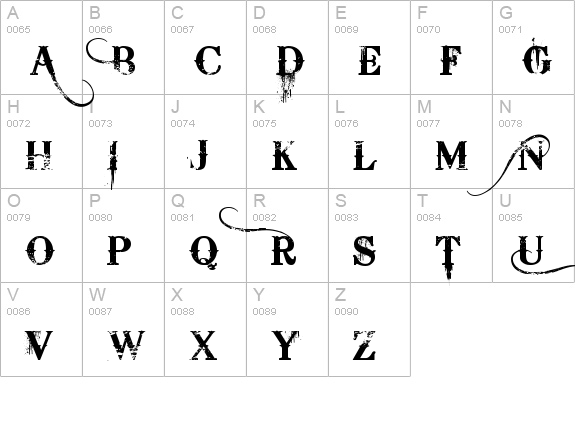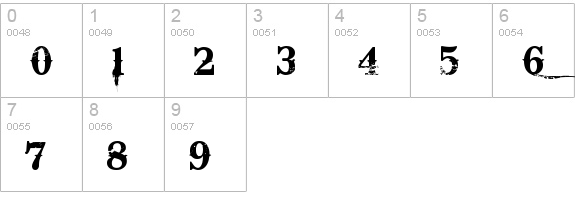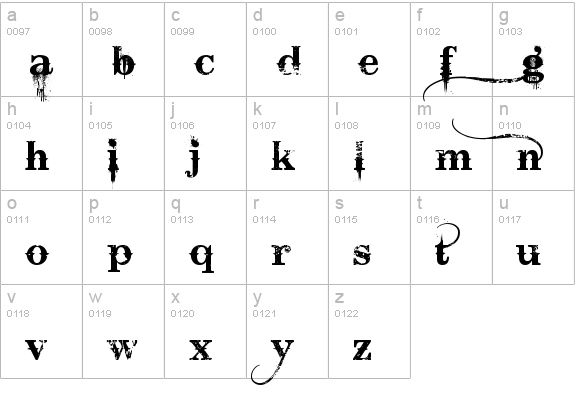
Bleeding Cowboys Font Details
The Bleeding Cowboys font is a striking display typeface that exudes an edgy and rebellious vibe. Its rugged and distressed appearance, with its jagged edges and worn-out texture, adds a touch of rawness and authenticity to any design project. This unique font is perfect for conveying a sense of adventure, mystery, or even a hint of danger. Its rough and wild style makes it ideal for various creative endeavors, such as album covers, movie posters, book titles, and more. Whether you want to create a vintage-inspired design or add a touch of grunge to your artwork, the Bleeding Cowboys font is sure to make a bold statement. One of the best things about the Bleeding Cowboys font is that it is freely available to download at FontsMarket.com. This means that you can easily access and incorporate this eye-catching typeface into your designs without any hassle. Its availability for free makes it an excellent choice for budget-conscious designers or anyone looking to add a touch of rebelliousness to their projects. With its distinct and captivating appearance, the Bleeding Cowboys font is bound to grab attention and leave a lasting impression. Its versatility and the fact that it can be downloaded for free make it a must-have font for designers seeking to add a touch of roughness and authenticity to their work. So go ahead, unleash your creative spirit and let the Bleeding Cowboys font bring your designs to life.